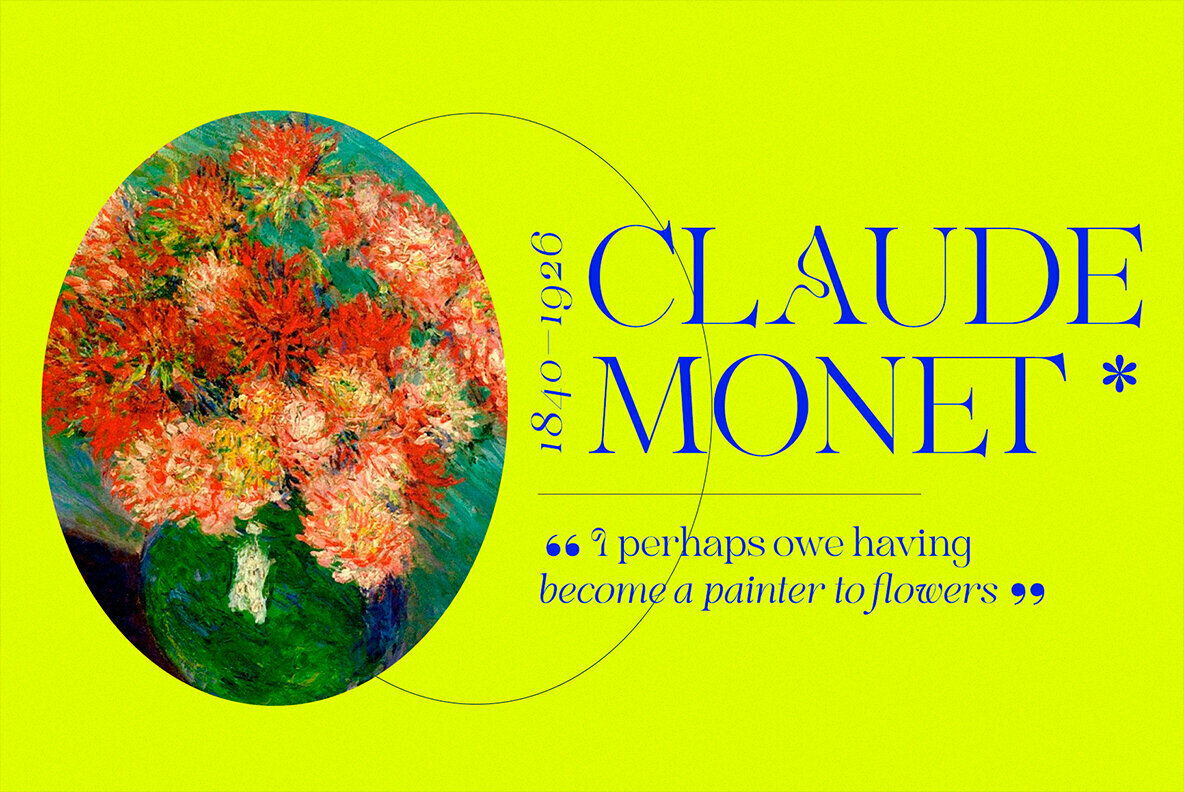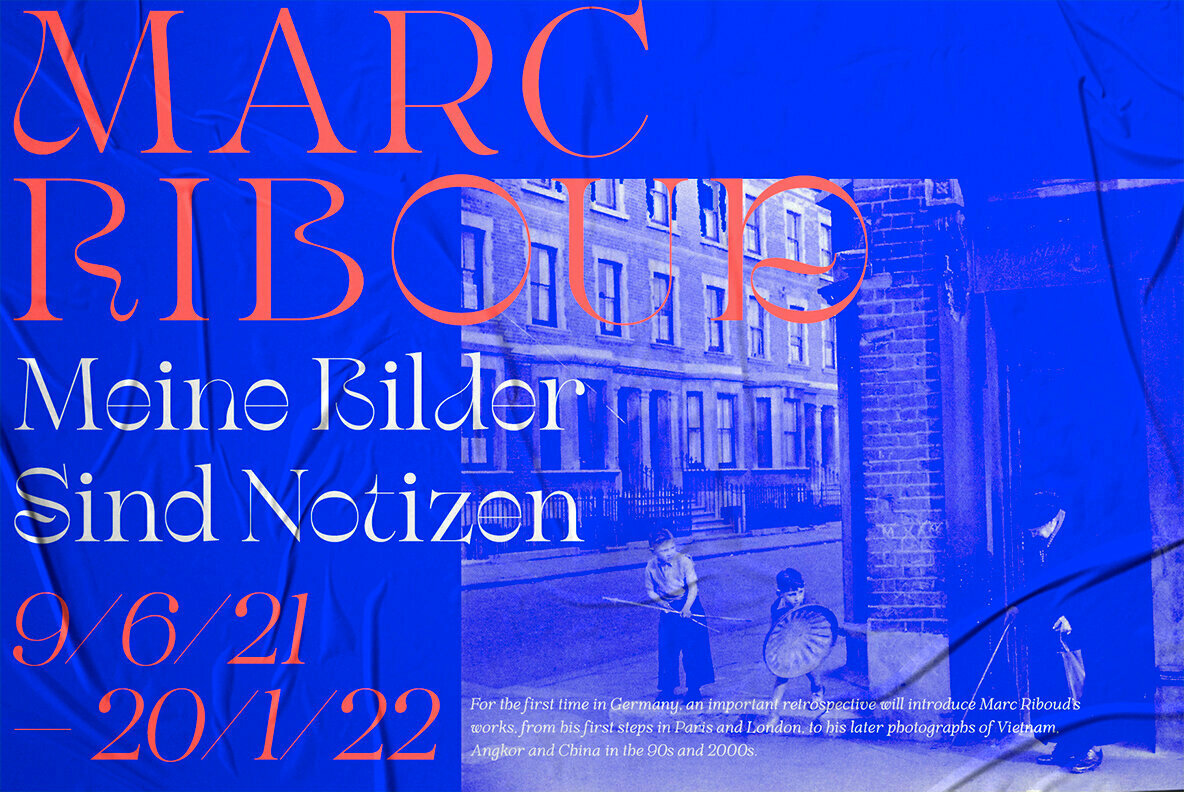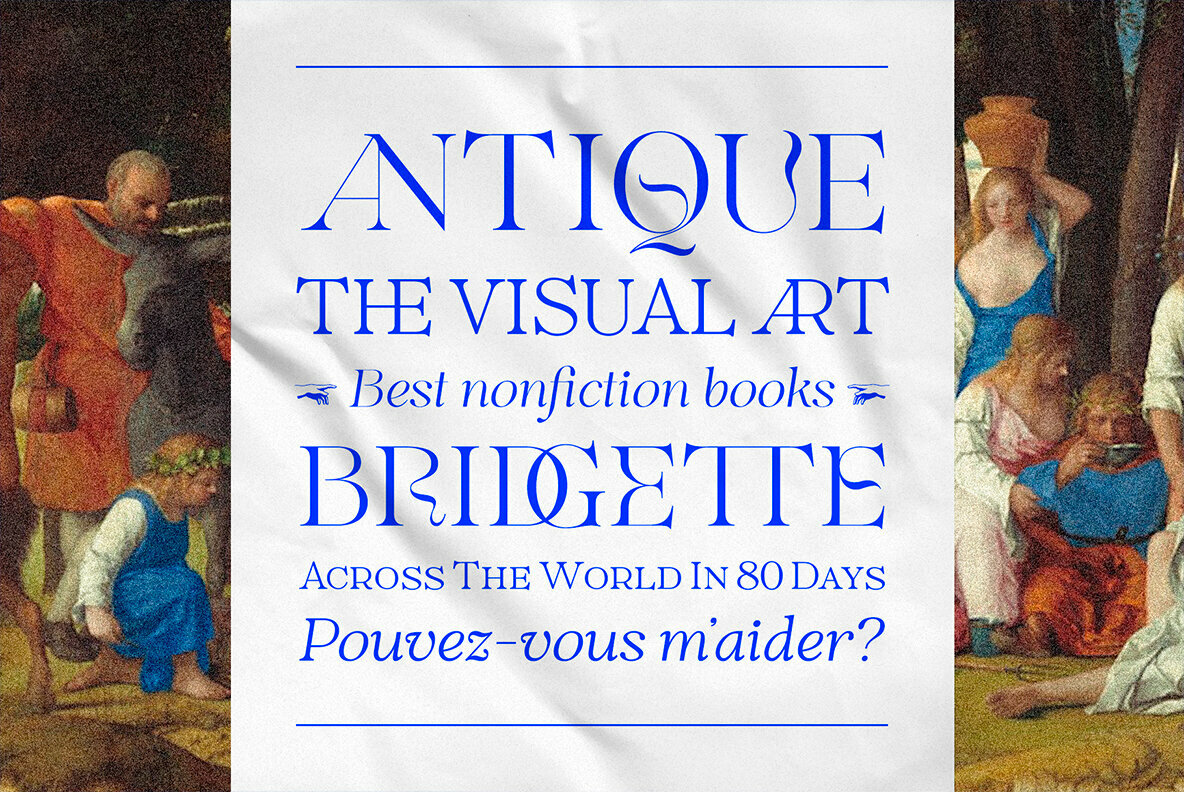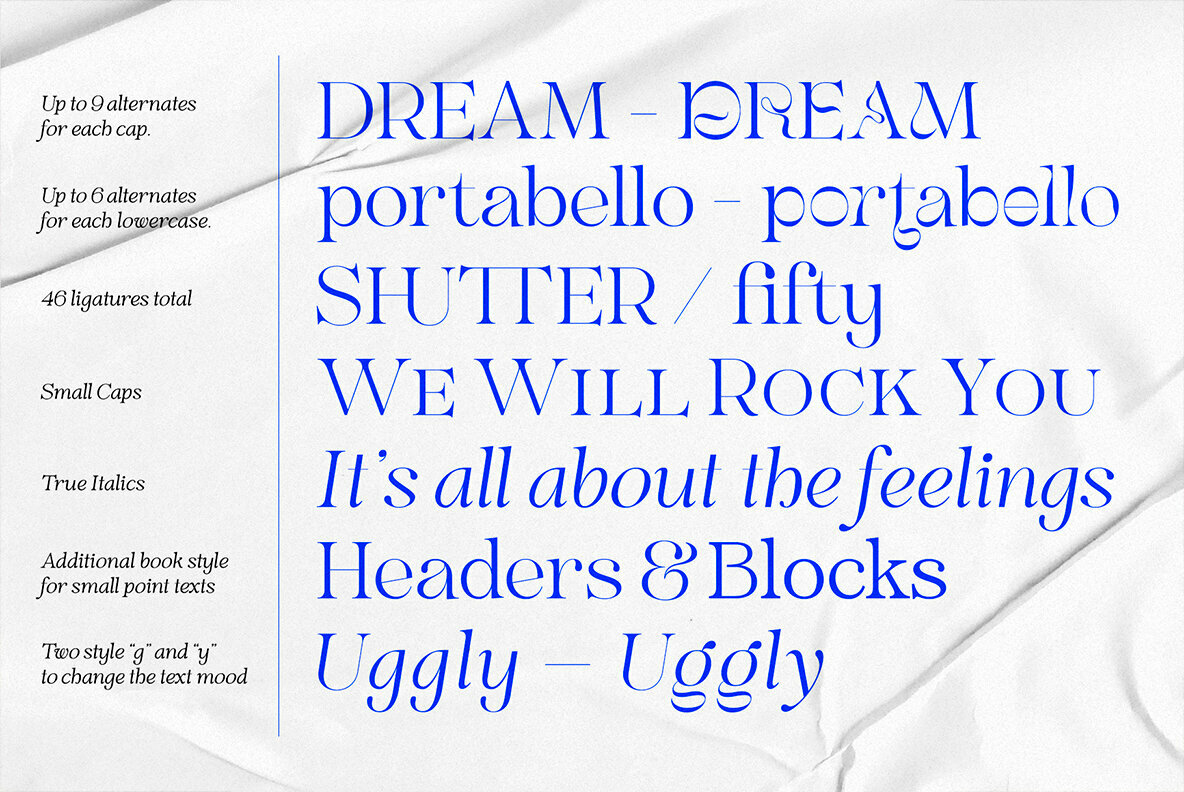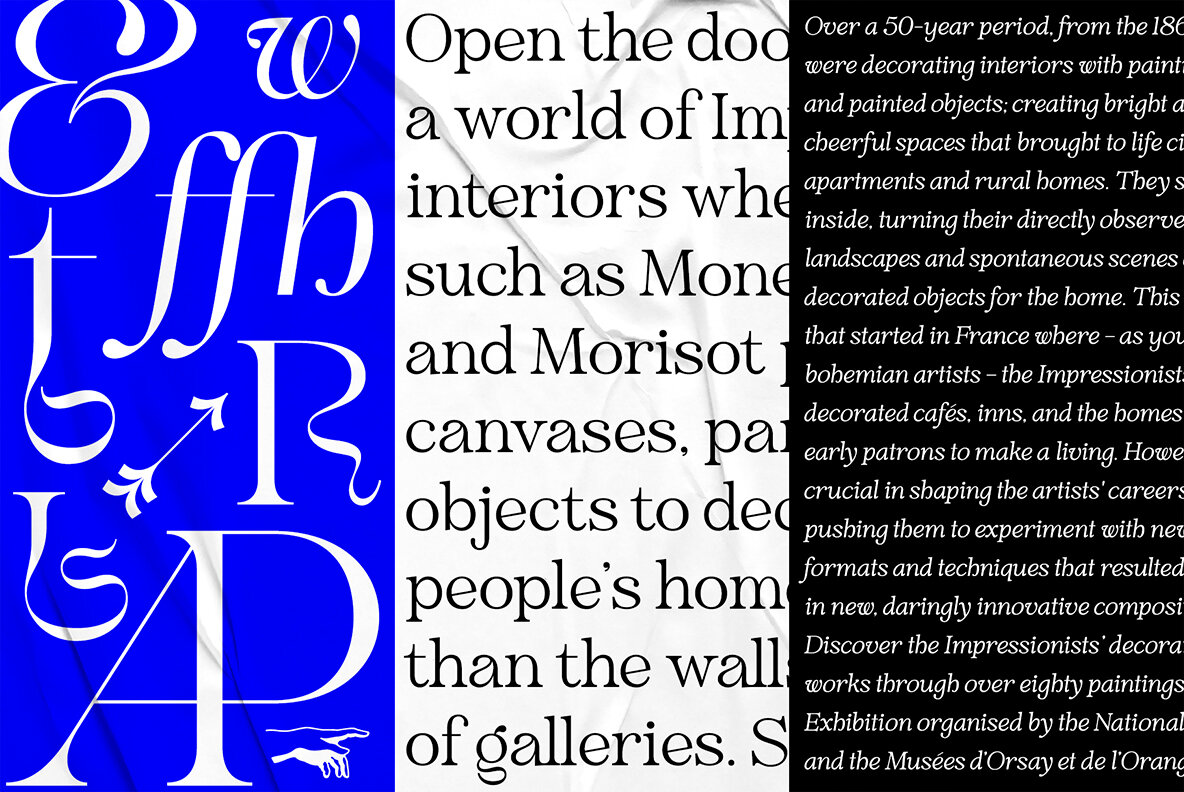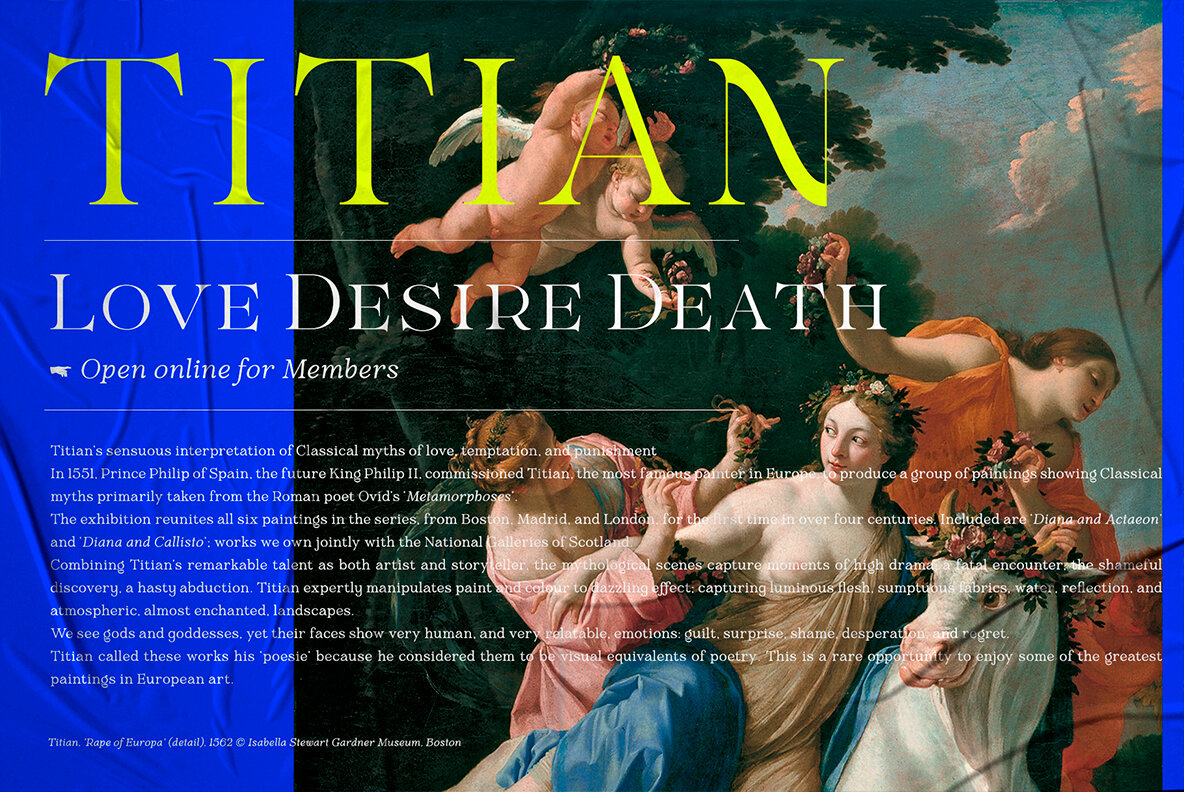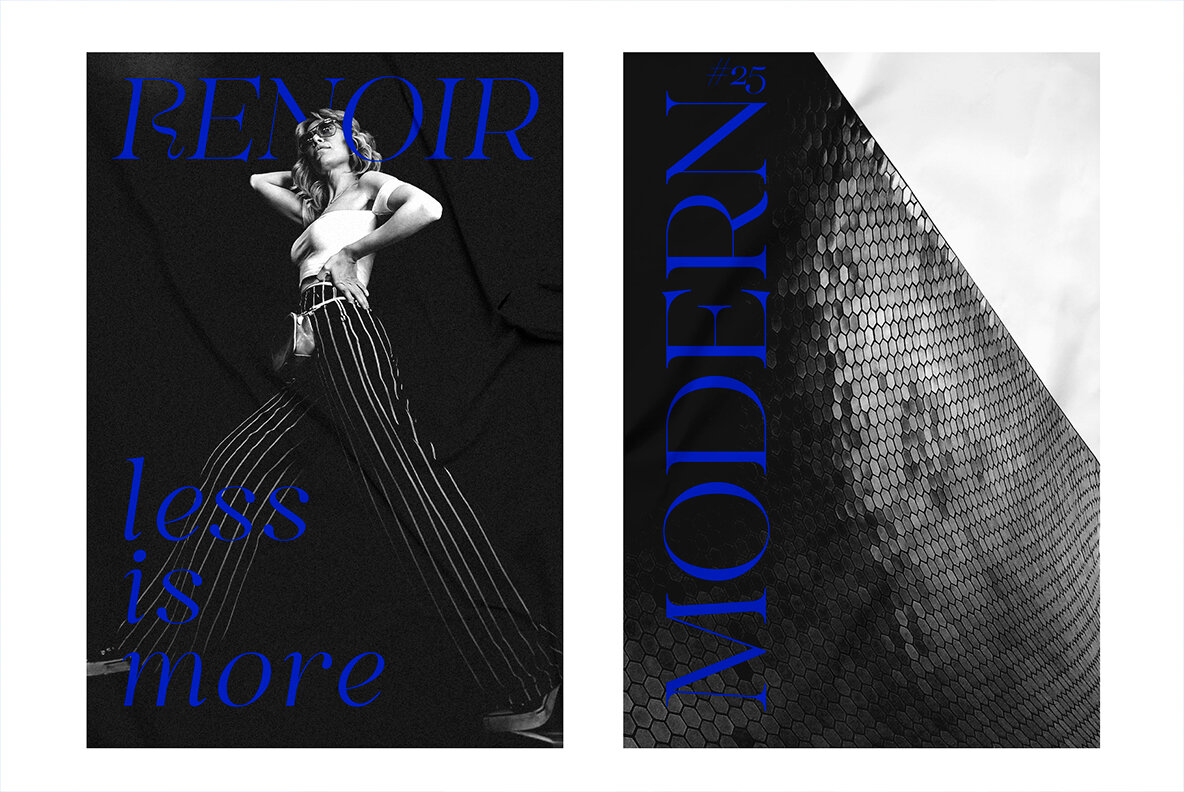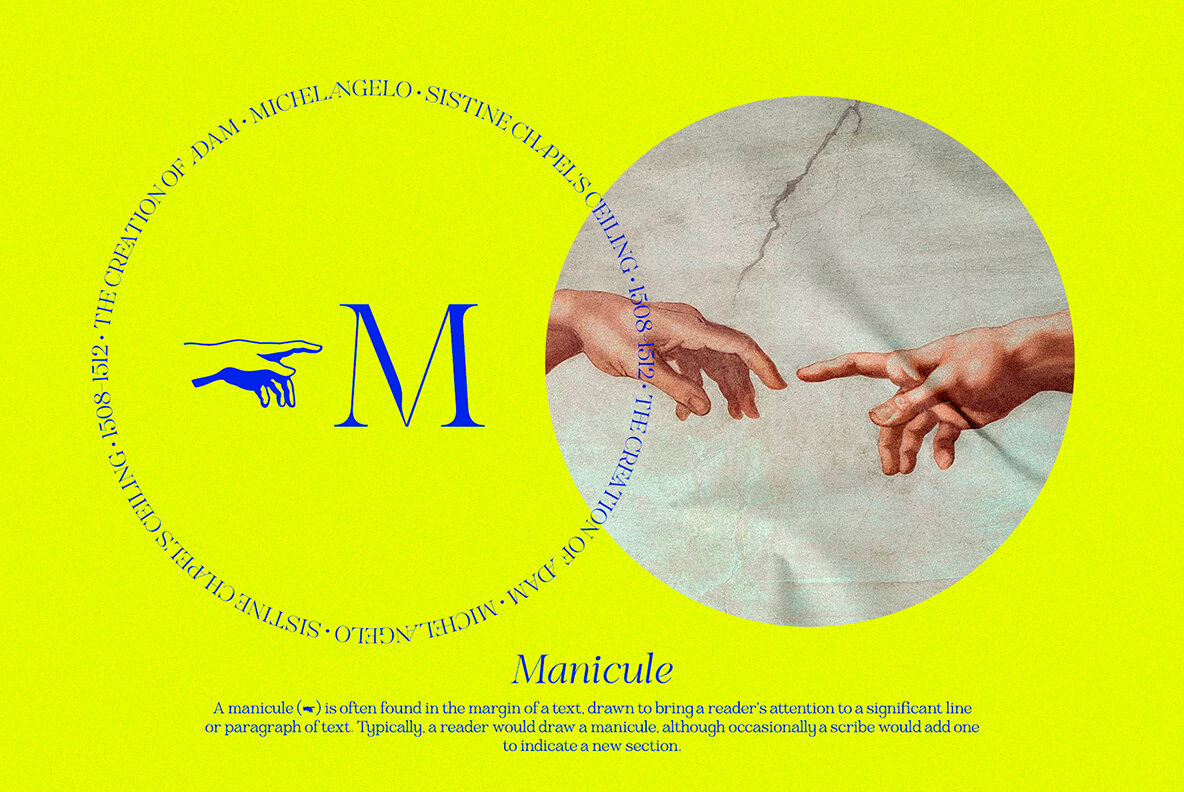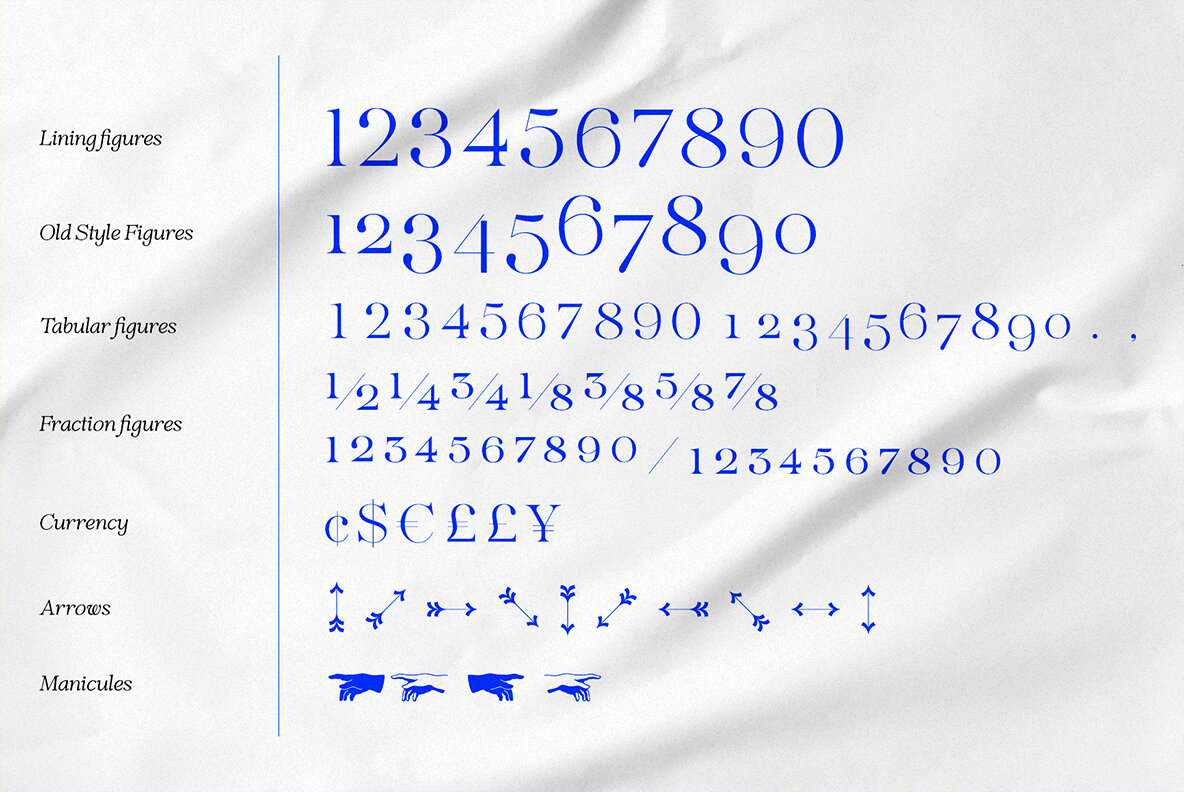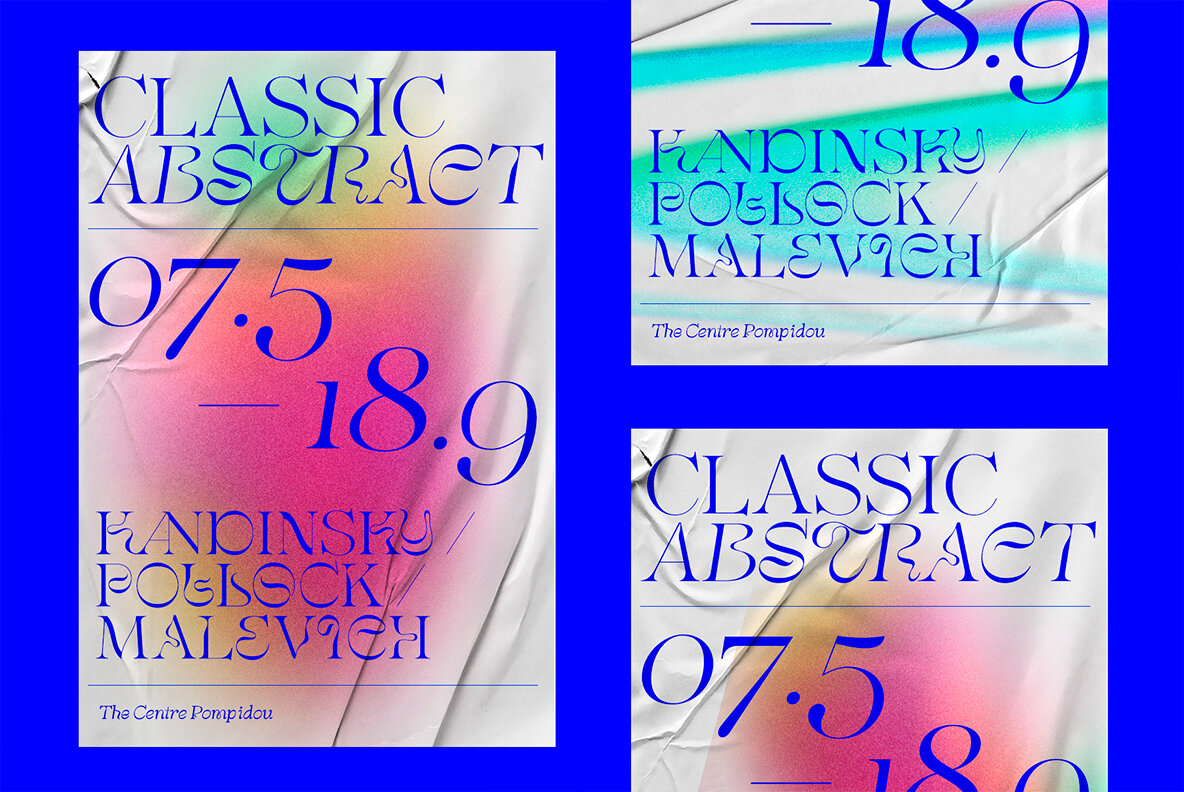
Nobleman Font
VVS Nobleman Book
VVS Nobleman Book Italic
VVS Nobleman Display
VVS Nobleman Display Italic
Nobleman brings a sophisticated balance of classic and contemporary aesthetics to your typography projects. Its high-contrast strokes create an unmistakable style, lending versatility to both traditional and modern designs. Features: Nobleman allows designers to choose between classic conservative appeal or a more playful look with its wide range of alternates, making it an invaluable asset for any design endeavor.Nobleman: Classic Serif with Modern Flair